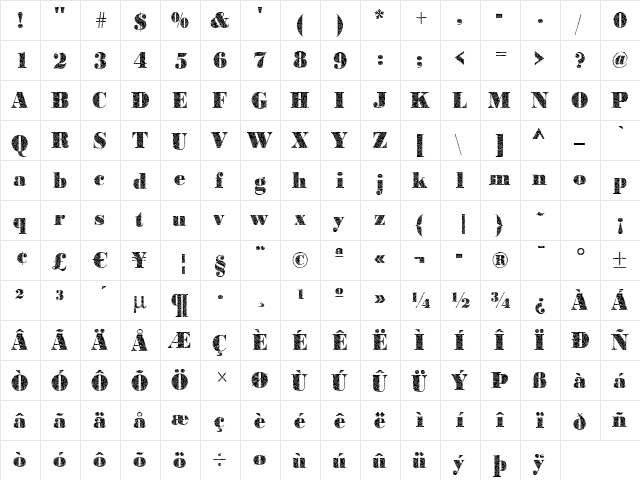
BodoniBrokenGlass2 Regular
Design Context for BodoniBrokenGlass2 Typeface
BodoniBrokenGlass2 is a composed and adaptable typeface that performs quietly and consistently across a wide range of design contexts.
Pro Tip: Use BodoniBrokenGlass2 in both headline and body roles to test its range before committing to a single application.